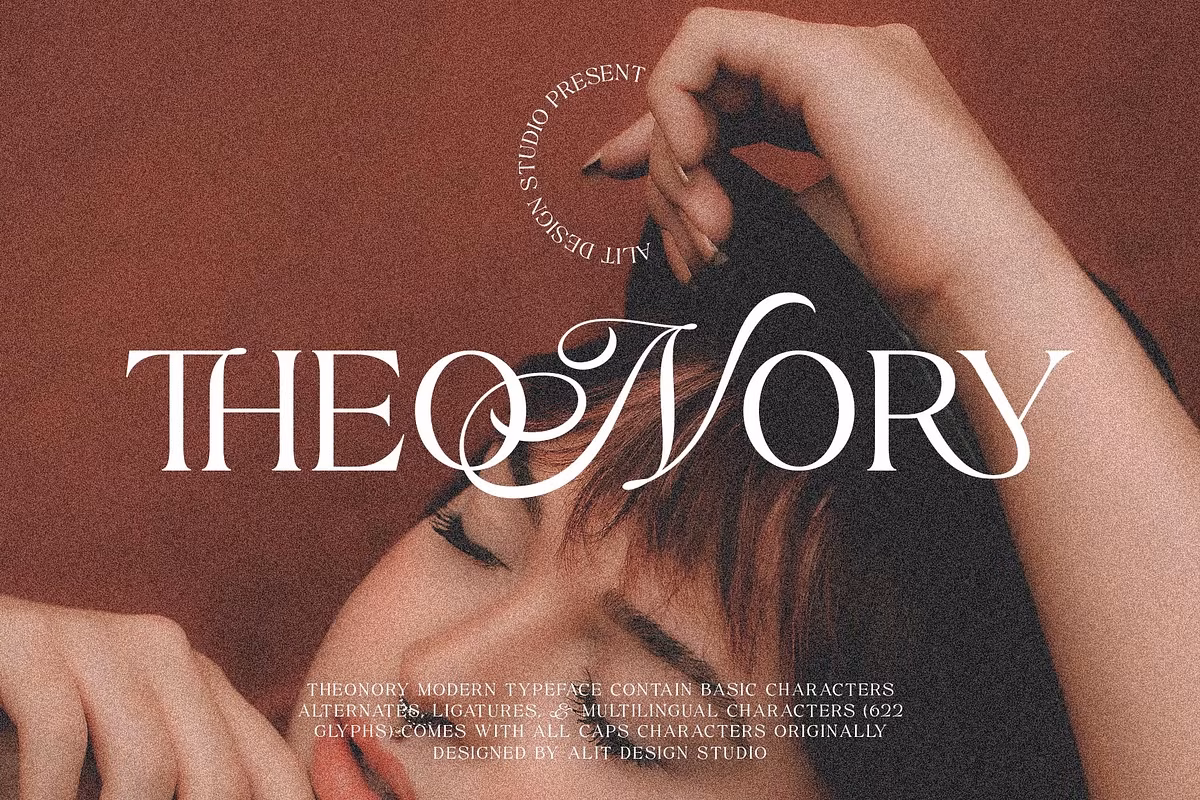
You must purchase this font for commercial use. However, you can download Theonory Typeface Free Download for testing purposes. Theonory is a luxurious and expressive serif typeface, crafted to bring a sense of elegance and bold sophistication to any design. Perfect for premium branding, editorial titles, fashion campaigns, product packaging, wedding invitations, and upscale digital content, Theonory strikes the perfect balance between classic charm and modern flair.
With high contrast strokes, distinctive curves, and refined details, Theonory commands attention while maintaining exceptional legibility. It also includes stylistic alternates and ligatures, offering designers creative flexibility for crafting unique, personalized typographic compositions. Whether you're designing a headline, logo, or stylish layout, Theonory Typeface Free Download allows you to explore its full potential. Be sure to purchase the appropriate license for commercial or client use. Download Theonory Typeface Free Download today and add timeless elegance and bold character to your design toolkit.